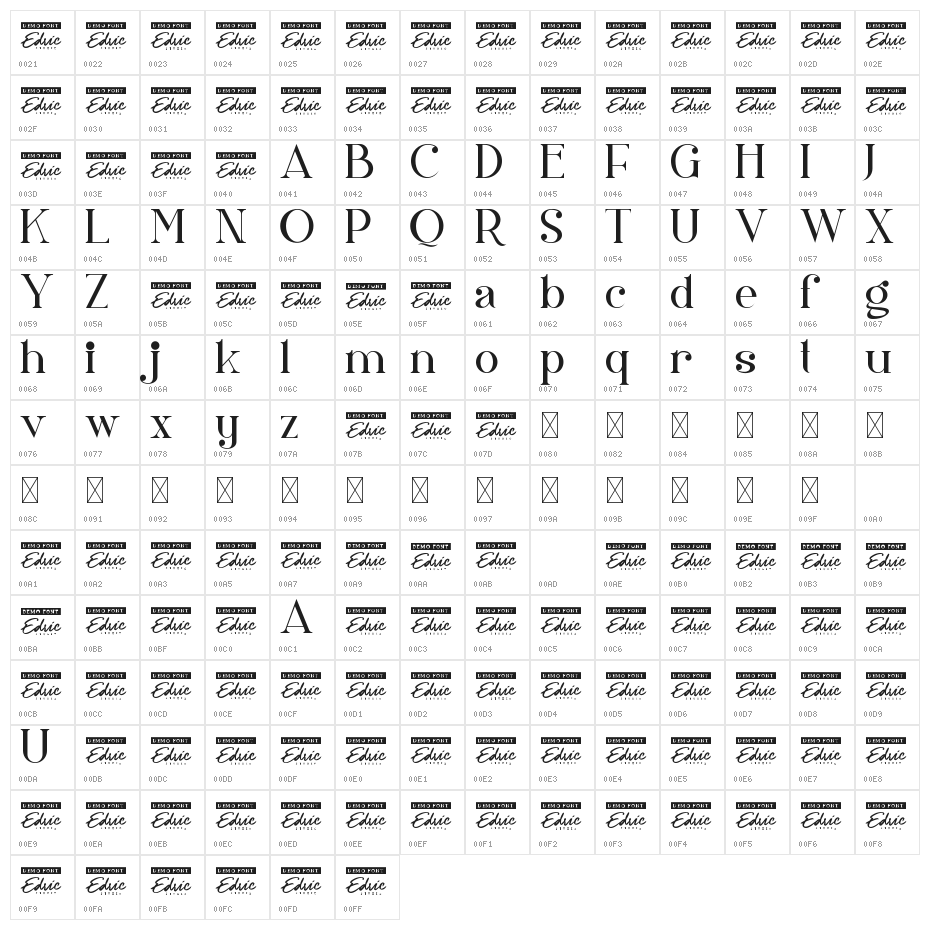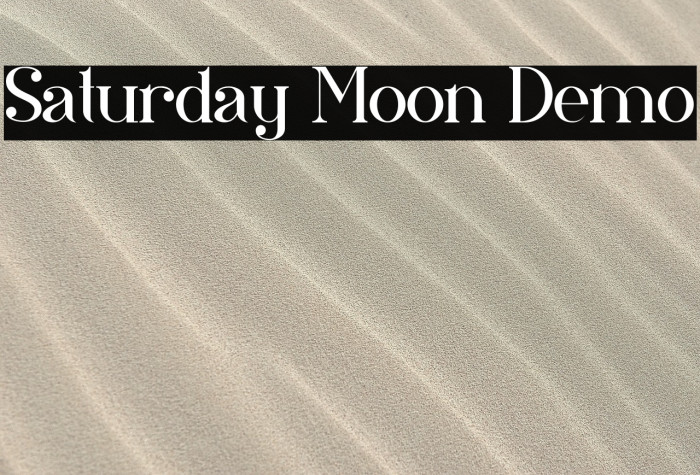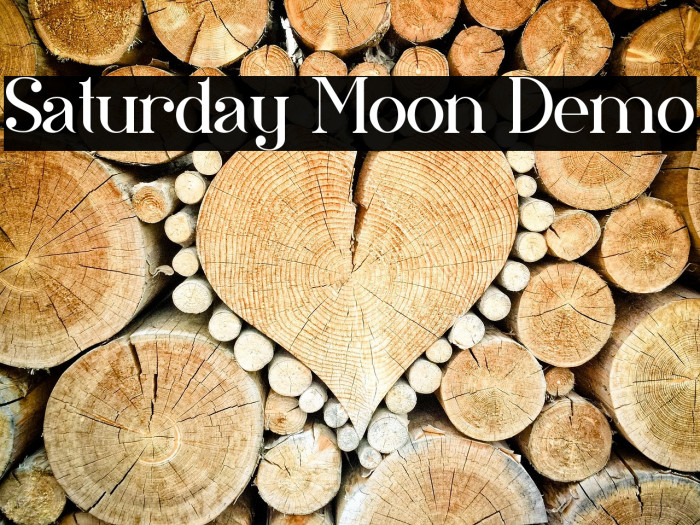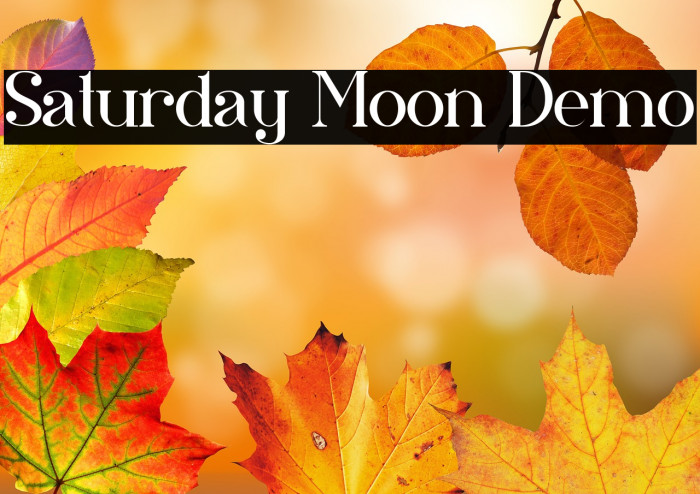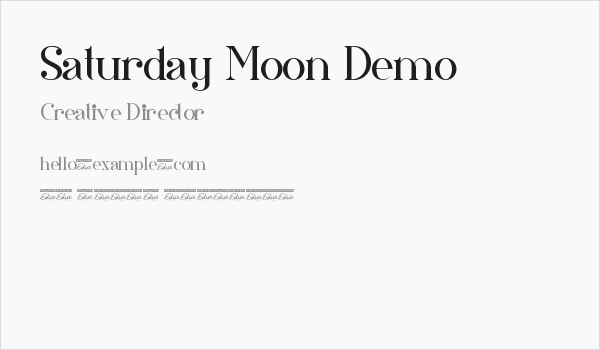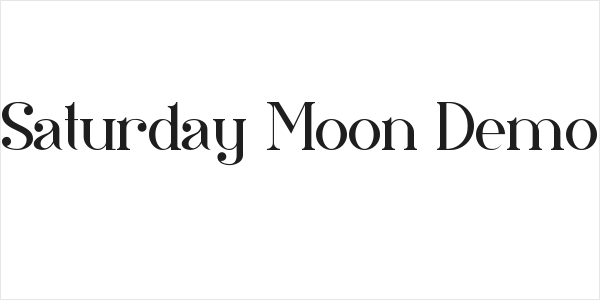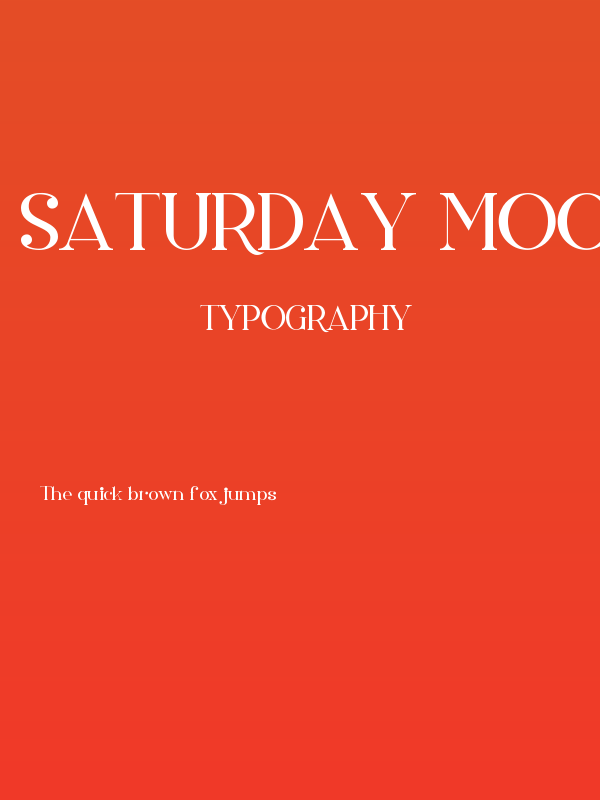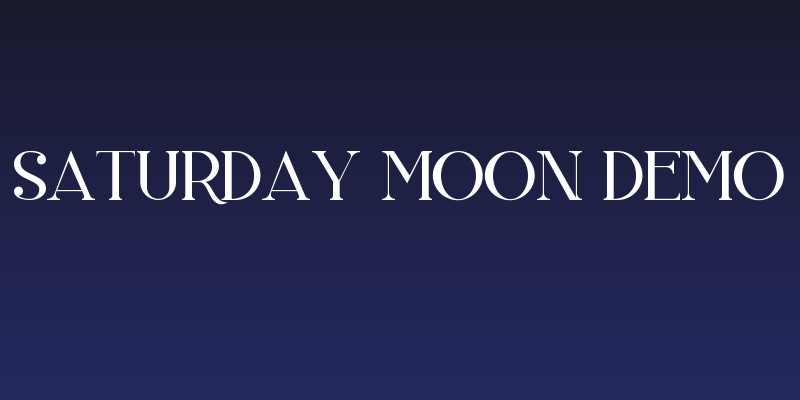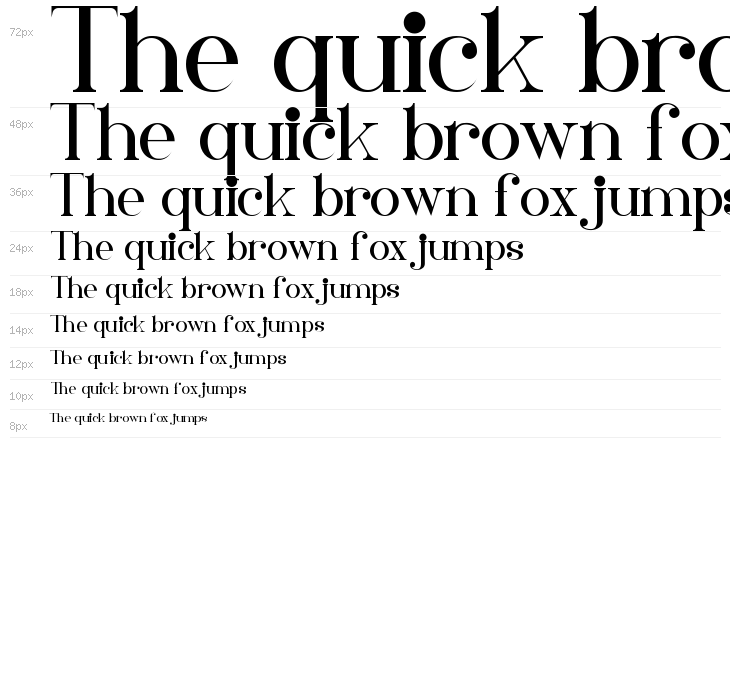
Saturday Moon Demo Font
Saturday Moon Demo Description
This font features a sophisticated and elegant design, characterized by its high contrast between thick and thin strokes. The serifs are sharp and pronounced, adding a touch of classic elegance. The uppercase letters are tall and commanding, while the lowercase letters maintain a balanced and harmonious appearance. The overall style is reminiscent of traditional serif fonts but with a modern twist, making it suitable for both contemporary and classic design projects. The font's unique character shapes, such as the distinctive 'g' and 't', add personality and flair, making it ideal for branding and editorial use.
| Use Case | Headlines, Logos, Editorial design |
| Proposed Projects | Ideal for branding, editorial design, luxury packaging, and wedding invitations. |